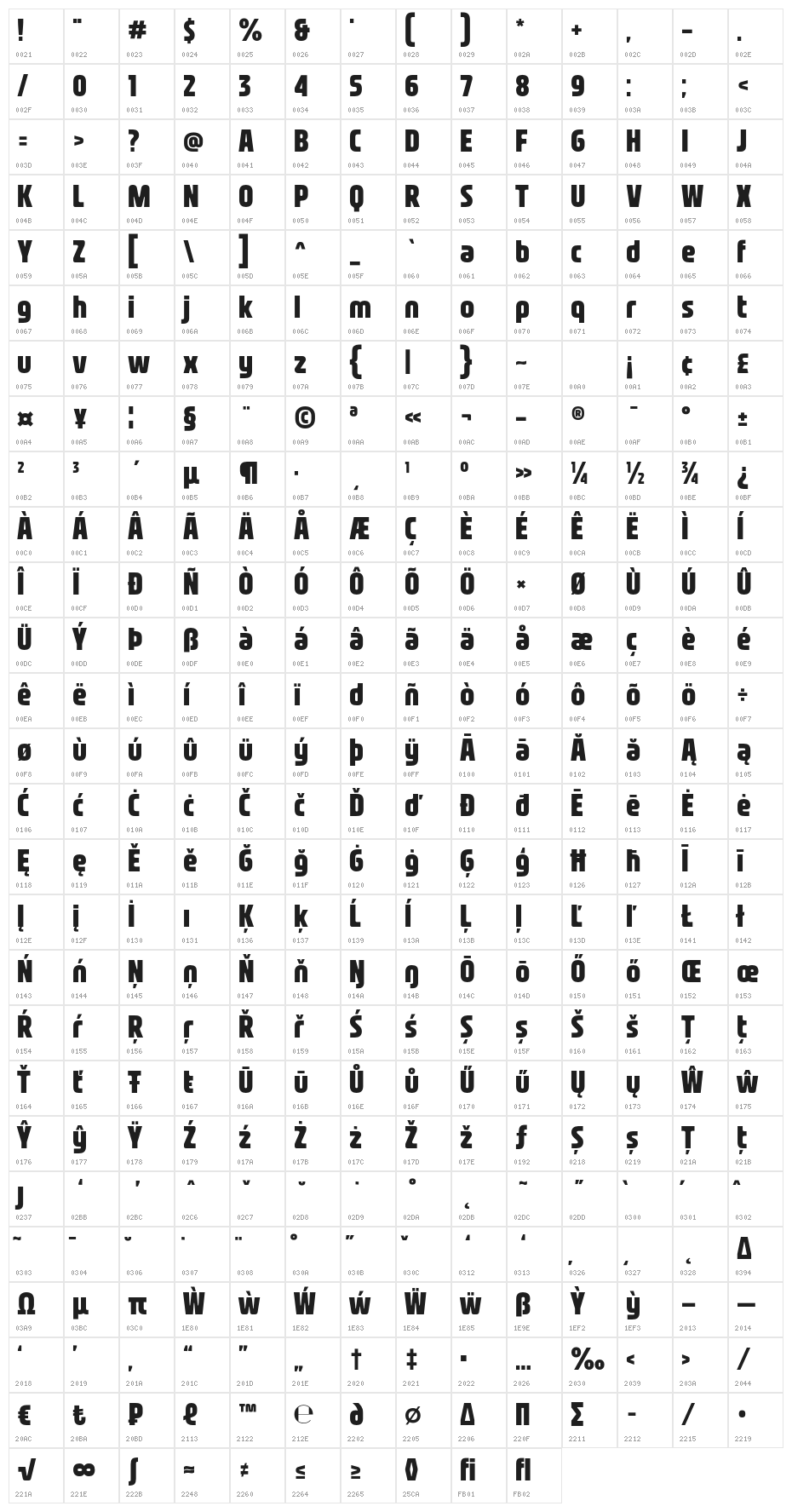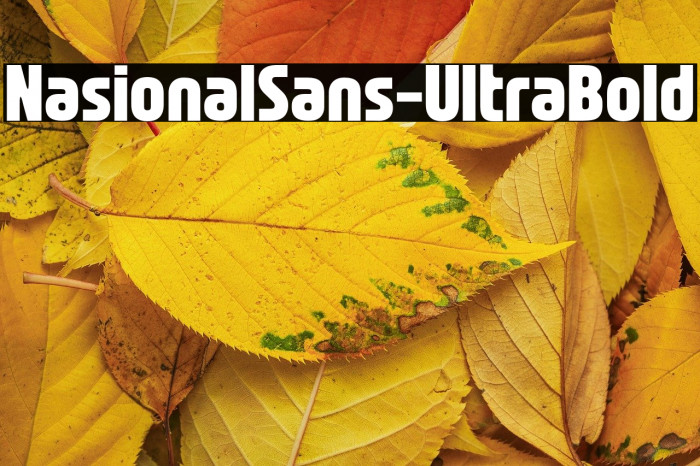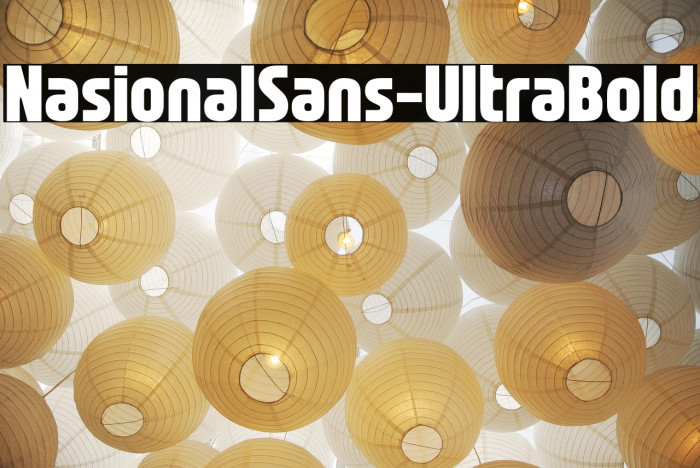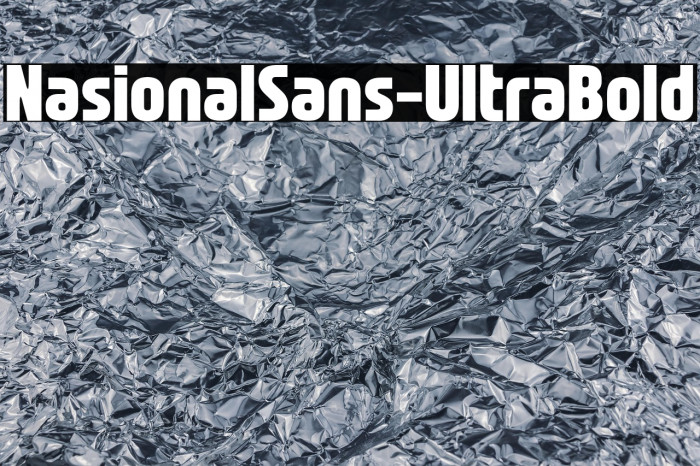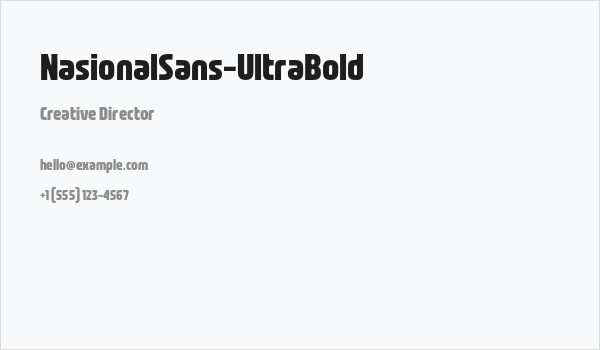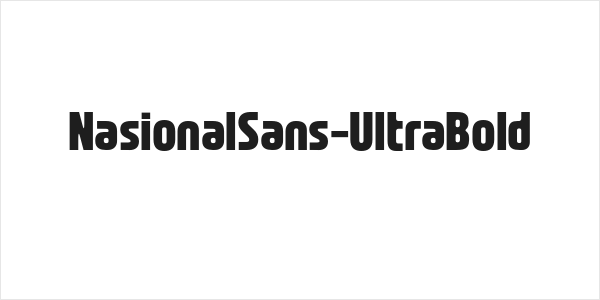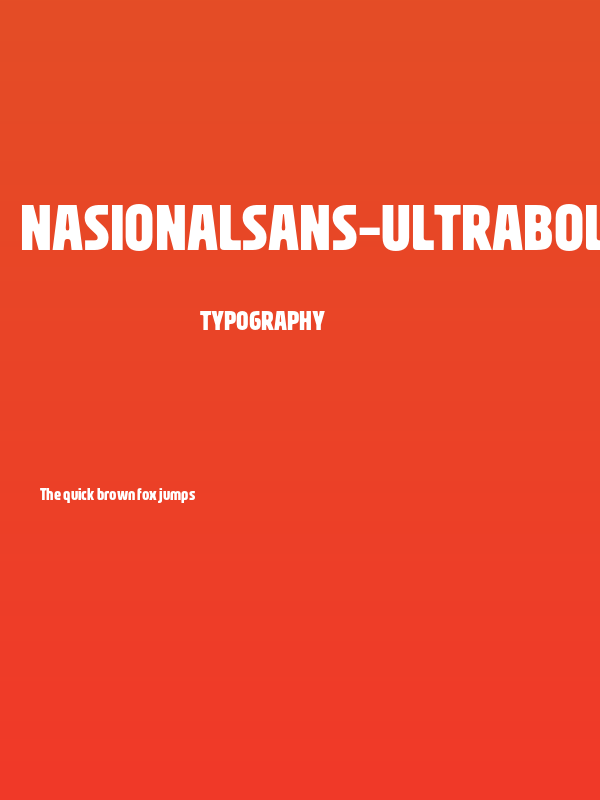
NasionalSans-UltraBold Font
NasionalSans-UltraBold Description
This font features a bold and impactful design with strong, thick strokes that convey a sense of strength and modernity. The characters are uniformly wide, giving it a robust and stable appearance. The uppercase and lowercase letters are well-balanced, maintaining a consistent weight throughout. The numerals and special characters are designed to match the boldness of the alphabet, ensuring a cohesive look across all text. The overall style is clean and sans-serif, making it versatile for various design applications.
| Proposed Projects | Ideal for headlines, posters, branding, and advertising where a strong visual impact is needed. |